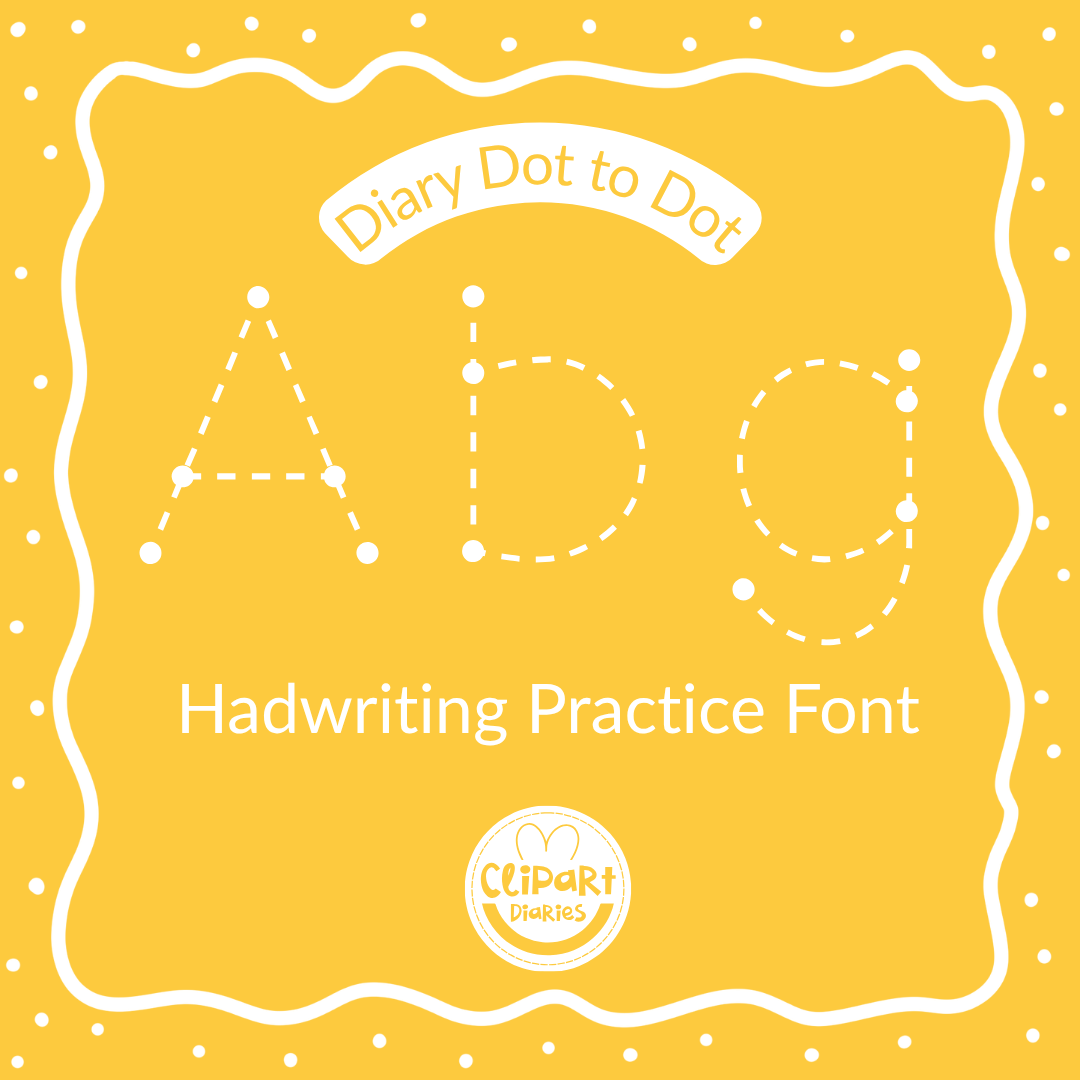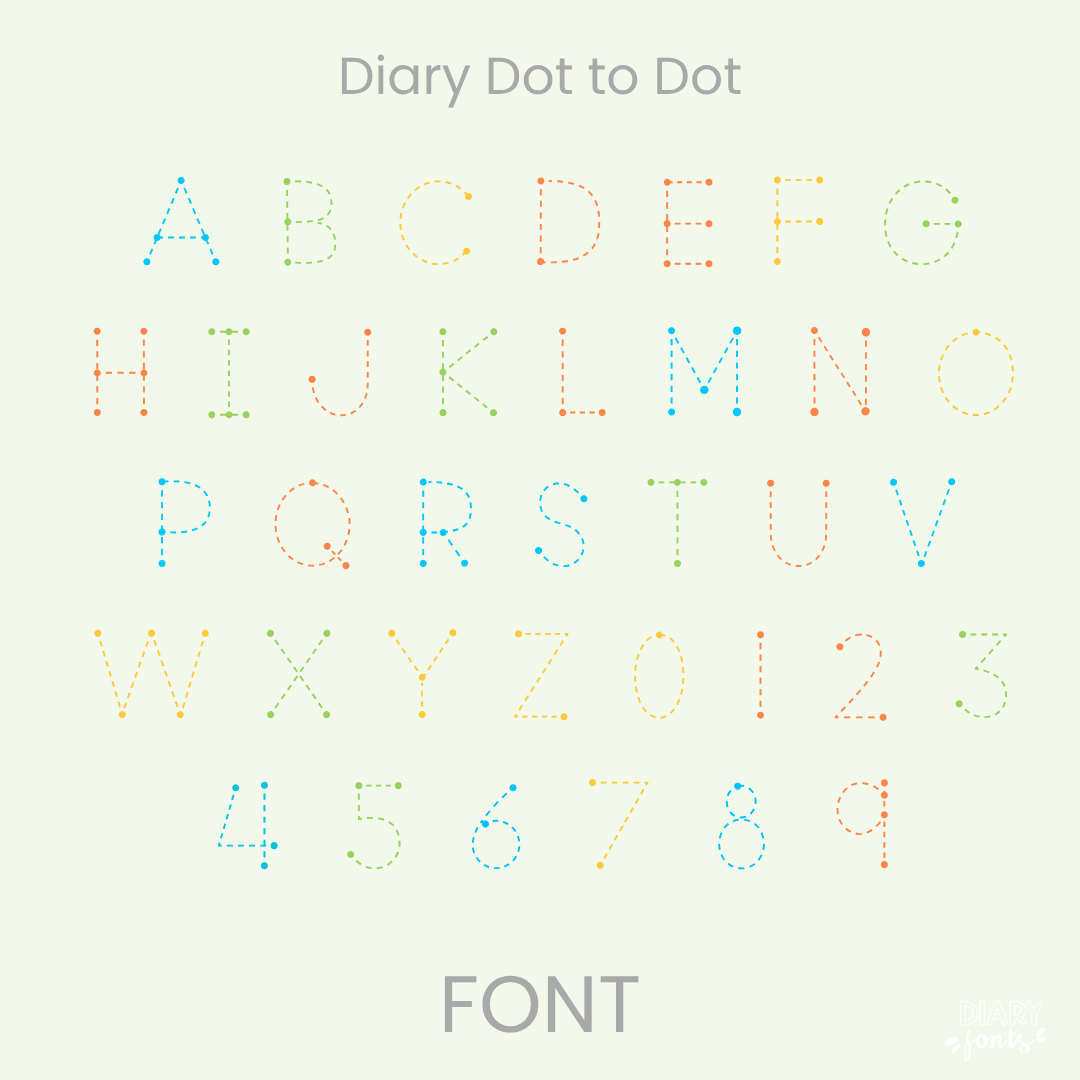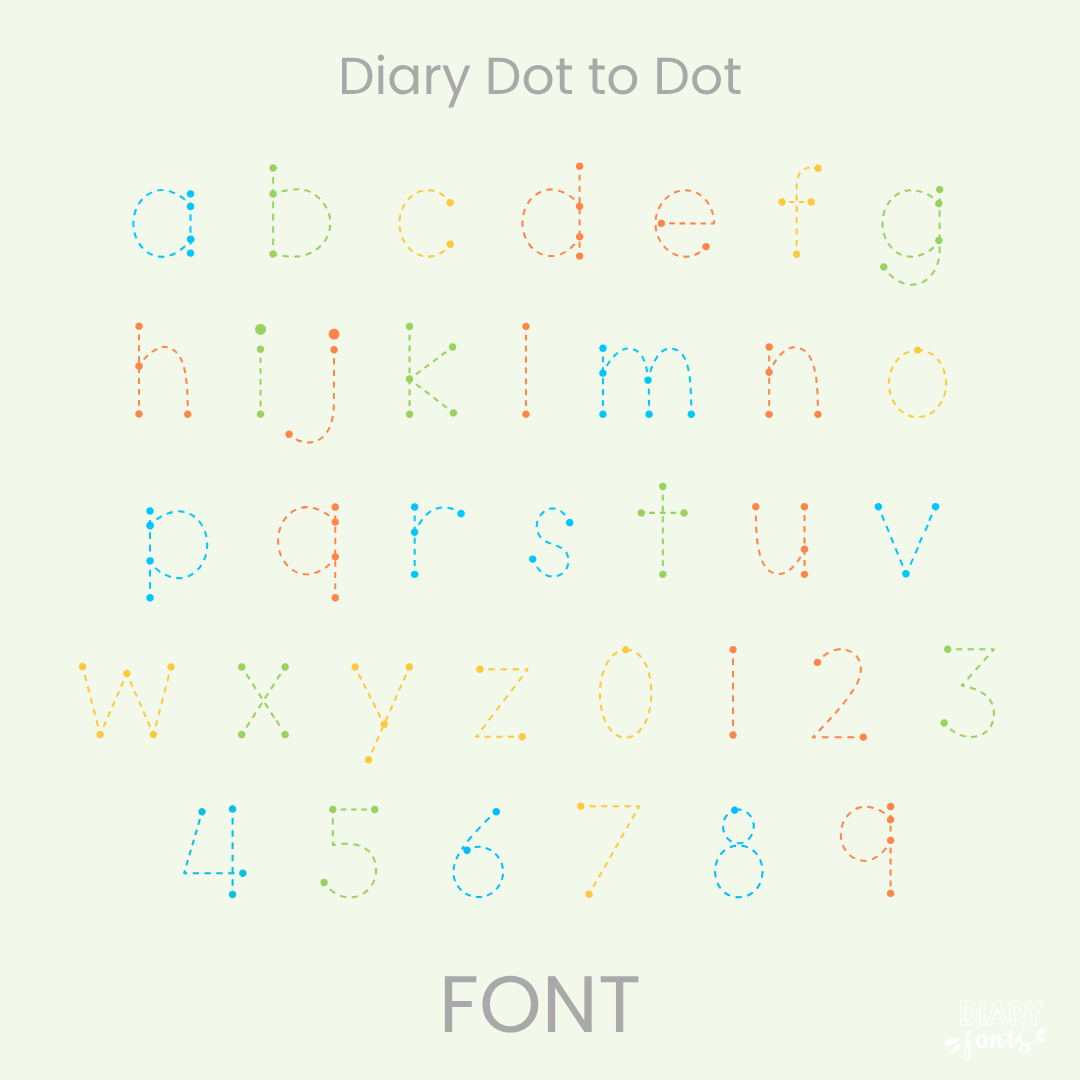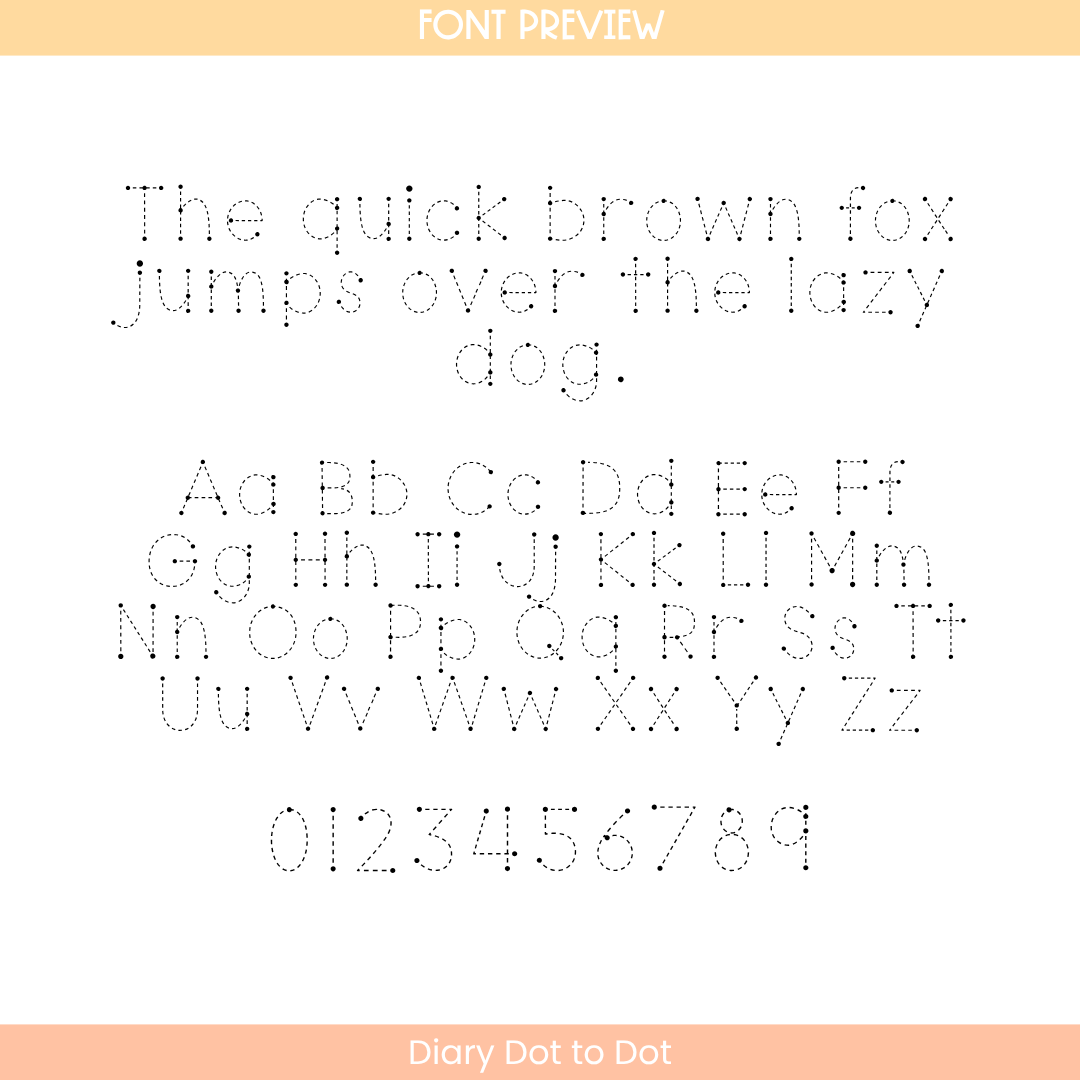
If you want to give your projects a cheerful and friendly look, Diary Dot to Dot is an excellent choice. It features smooth, guided characters made up of clear connect-the-dots style lines that mimic an engaging tracing activity while remaining neat and easy to follow. This makes it highly legible for students while still feeling playful. It is especially effective for bold headers, classroom labels, and primary school resources. The font includes a full set of uppercase and lowercase letters, numbers, and multiple accents to support different languages. It is ready for use in Canva, MS Office, and Adobe Apps, and it works perfectly with iPad apps like GoodNotes and Procreate. Whether for personal classroom use or commercial resources, this font adds a soft and approachable aesthetic to your work.